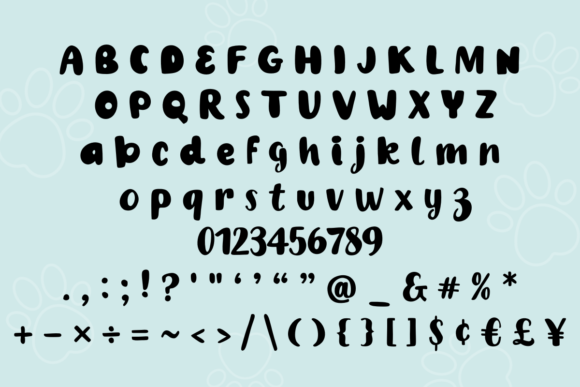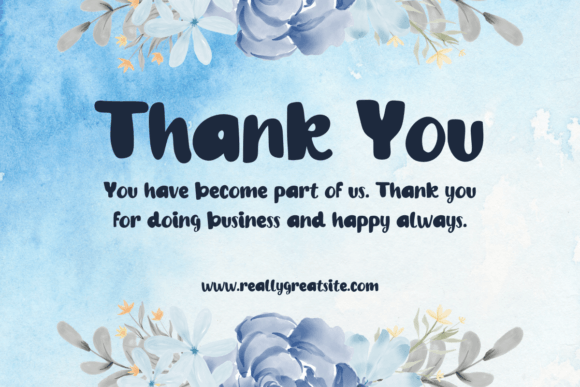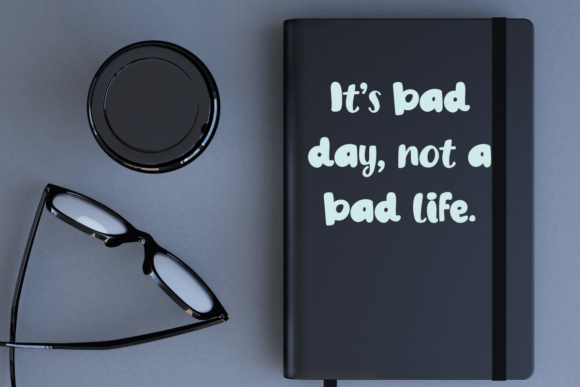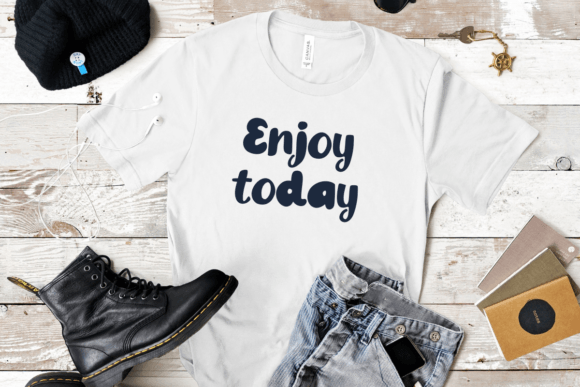
The Campaign Font: A Handwritten Gem for Creative Projects
I’ll never forget the time I was working on a greeting card design project, and I just couldn’t find the perfect font. My client wanted something warm, friendly, and personal, but also versatile enough to use across various design elements. That’s when I stumbled upon the Campaign font, a beautiful handwritten font that has since become a staple in my design toolkit.
So, what makes the Campaign font so special? Let’s dive into the good stuff and a few quirks I’ve discovered.
- ✨ Unique, handwritten feel: The Campaign font has a distinct, personal touch that’s perfect for designs that need a human touch.
- ✅ Highly versatile: From notes and diaries to banners, social media posts, and more, this font adapts seamlessly to various design contexts.
- 💫 Ease of use: The font is easy to read and works well in both digital and print formats.
While the Campaign font is incredibly useful, there are a few things to keep in mind:
- ⚠️ Limited formal use: Given its handwritten nature, the Campaign font might not be the best choice for very formal projects or those requiring a high level of professionalism.
- 🤔 Glyph variety: While the font comes with a range of glyphs and stylistic alternates, you might find yourself wishing for even more variation for certain projects.
If you love the Campaign font but want to explore other options, here are a few alternatives:
- Pacifico: A beautiful, modern script font with a relaxed yet elegant vibe. Perfect for designs that need a bit of sophistication.
- Great Vibes: A handwritten font with a fun, energetic feel. Great for projects that require a playful touch.
- Alex Brush: A whimsical script font that adds a personal, artistic feel to any design. Ideal for creative, less formal projects.
- Lobster: A stunning, elegant script font that brings a touch of luxury to designs. Suitable for more formal or high-end projects.
The Campaign font was inspired by the desire to create a typeface that feels both personal and versatile. Imagine a world where handwritten notes are a lost art, and the Campaign font is here to bring that warmth back into our digital and print designs. Its creator aimed to capture the essence of handwriting in a way that’s easy to read and fun to use.
Q: What makes the Campaign font unique?
A: The Campaign font stands out due to its handwritten, personal feel, making it perfect for designs that need a human touch.
Q: Does the Campaign font support OpenType features?
A: Yes, the Campaign font supports OpenType features, allowing for a range of glyphs and stylistic alternates to enhance your designs.
Q: Is the Campaign font suitable for body text?
A: While the Campaign font is easy to read, its handwritten nature makes it more suited for headings, notes, and short paragraphs rather than long body text.